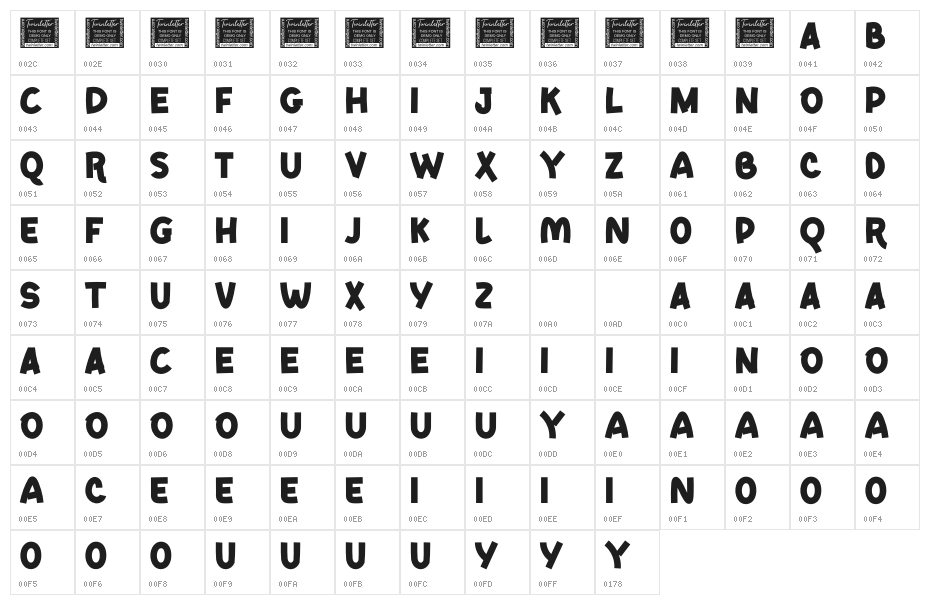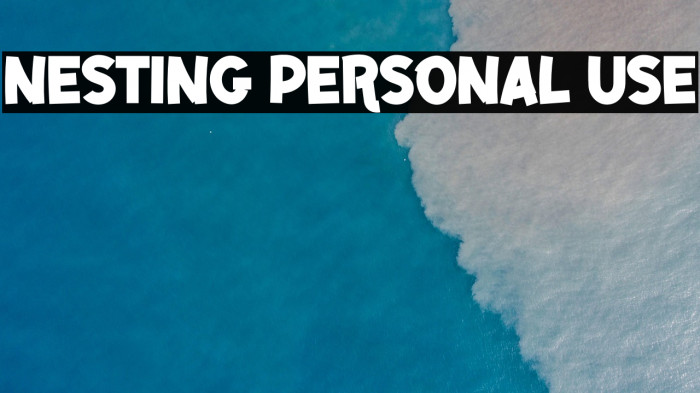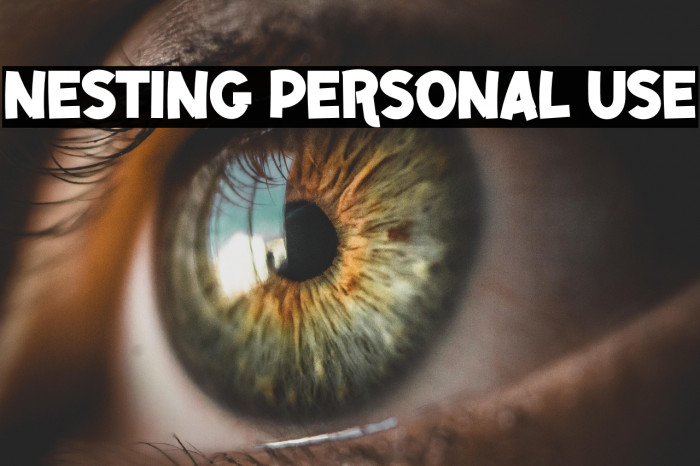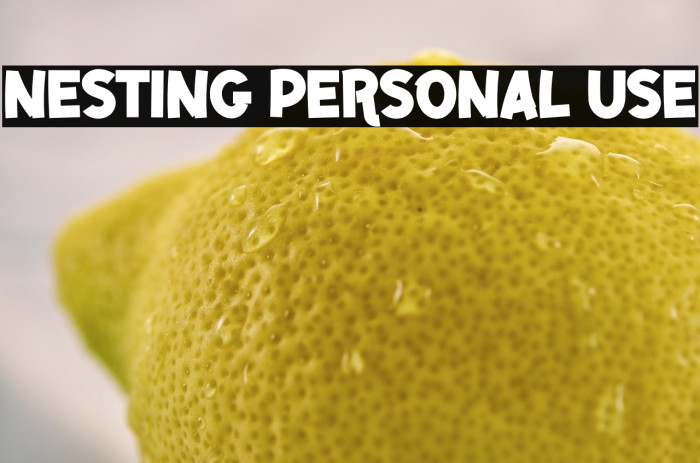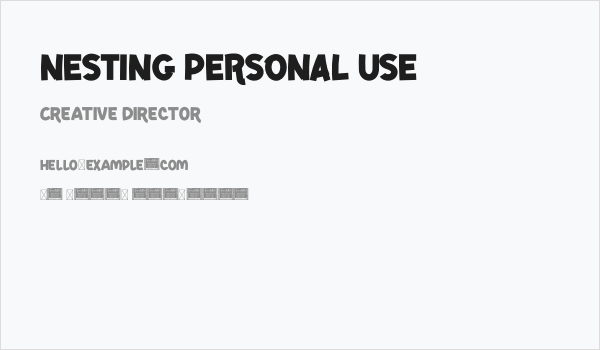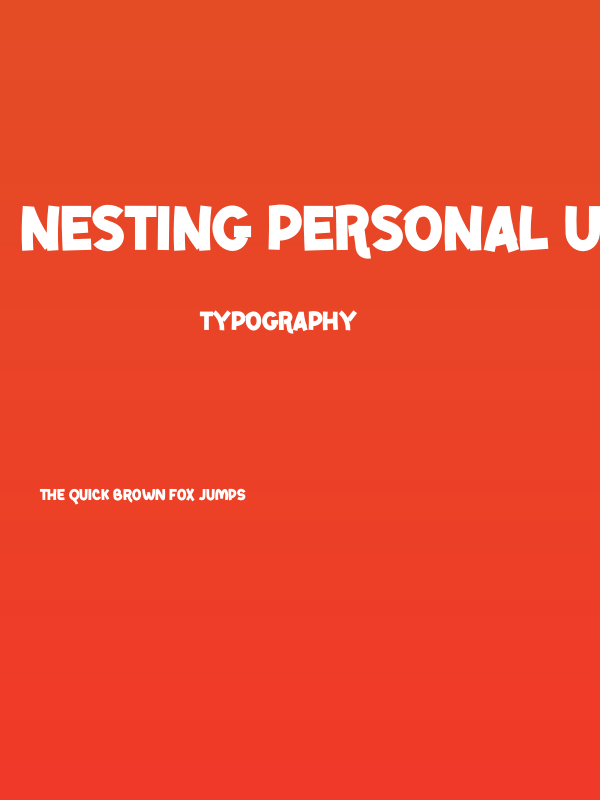
NESTING PERSONAL USE Font
NESTING PERSONAL USE Description
This font features a bold and playful design with exaggerated curves and angles, giving it a lively and energetic appearance. The uppercase letters are characterized by their thick strokes and slightly irregular shapes, adding a whimsical touch. The overall style is reminiscent of hand-drawn or cartoon-like lettering, making it suitable for projects that require a fun and informal vibe. The font's boldness ensures high visibility, making it ideal for headlines or titles that need to stand out. Its unique style lends itself well to creative projects, children's books, or any design that aims to convey a sense of joy and playfulness.
| Overall Style | Playful, Cartoon-like, Energetic |
| Proposed Projects | Children's books, playful branding, event posters, greeting cards, and creative social media graphics. |